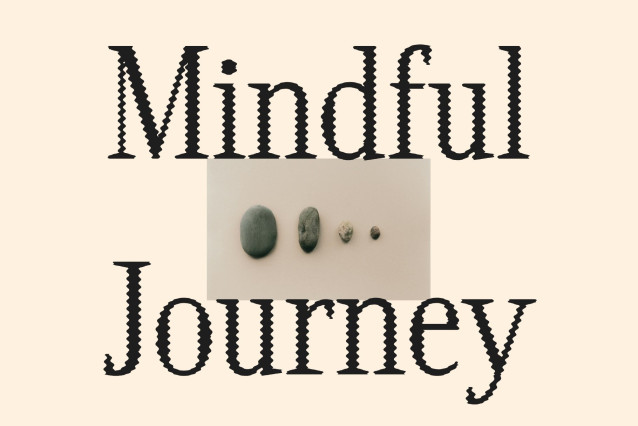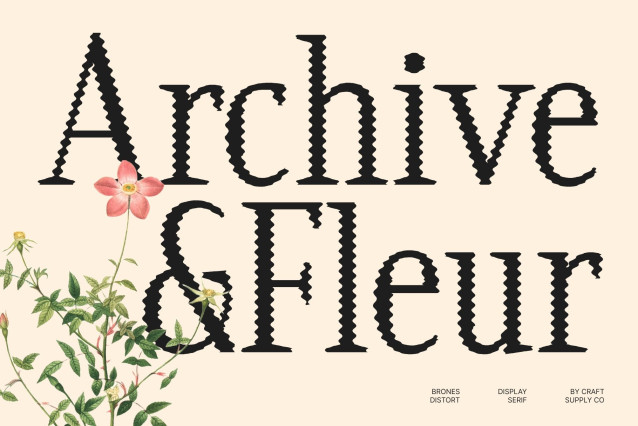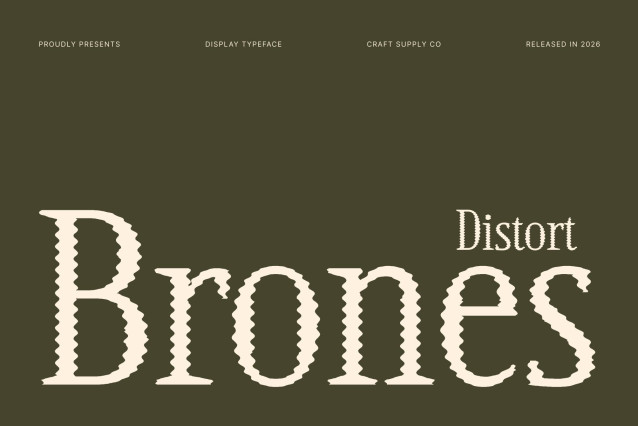
Brones Distort – Classic Font: Timeless Elegance with an Experimental Edge
Modern Classic Serif with a Distorted Character
This is a modern classic serif that blends timeless elegance with a contemporary distorted twist. Its sharp, refined serifs and clean letterforms preserve a sophisticated and professional appearance, while subtle distortion introduces a fresh, artistic personality. This balance creates a typeface that feels both classic and forward-thinking.
Melting Details for Visual Impact
The distort style adds soft, melting edges that gently warp the traditional serif structure. This expressive treatment brings movement and uniqueness to the letterforms without sacrificing clarity. The result is a refined yet experimental aesthetic that feels luxurious, dynamic, and visually engaging.